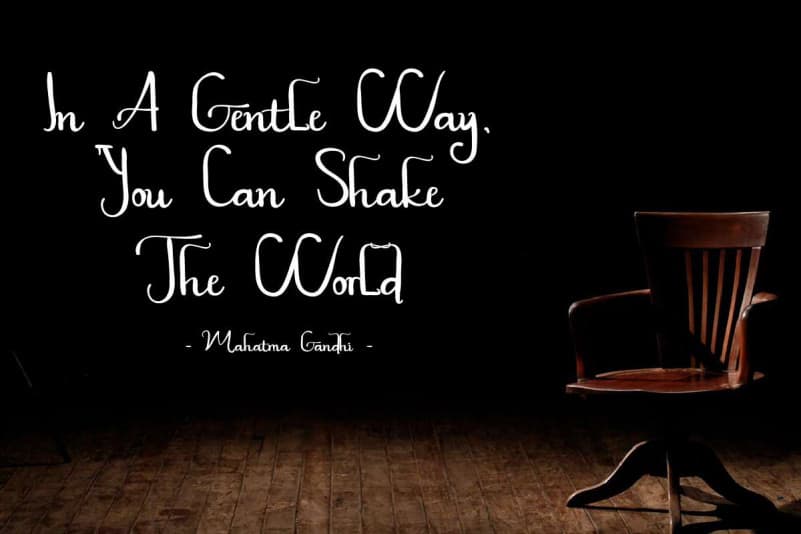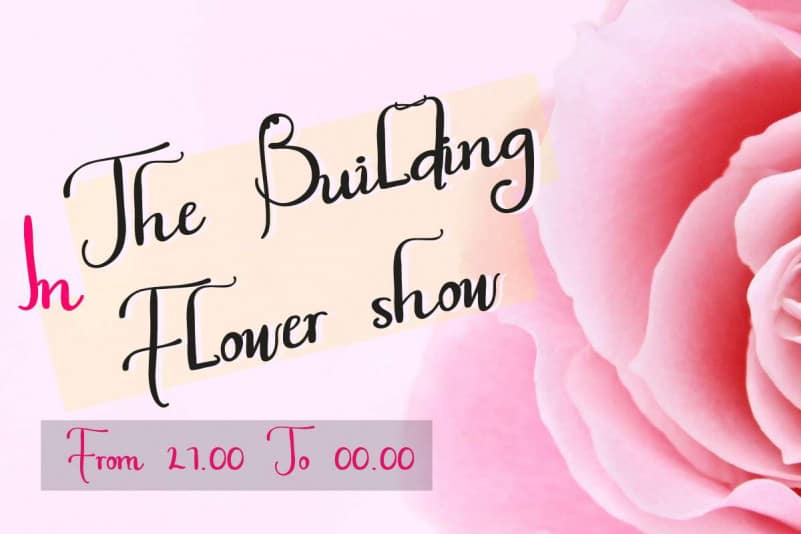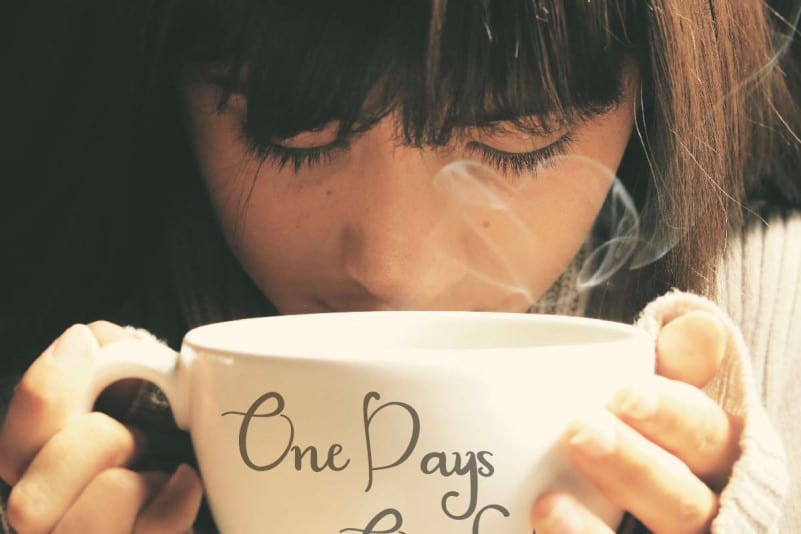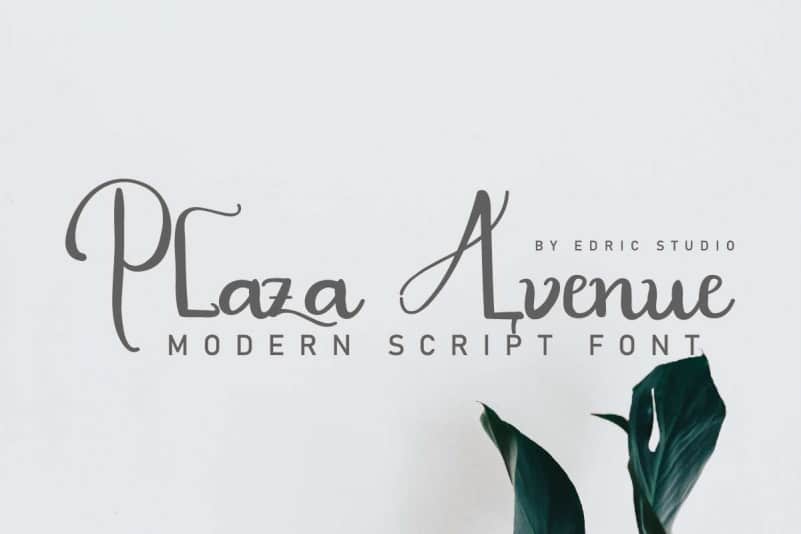
Plaza Avenue Handwriting Font
Plaza Avenue Handwriting Font is an exclusive handwritig calligraphy for display purpose. This font has a stunning characters set, perfectly managed with well spaced and kerning. The theme style of this font will elegant, vintage, stylish, sophisticated and classic signature style. You wont find any where else, the font like Plaza Avenue
Plaza Avenue Handwriting Font will be great for any projects (with exntended license) including : branding, logo, stationery, business card, signage, flyer, brochure etc.